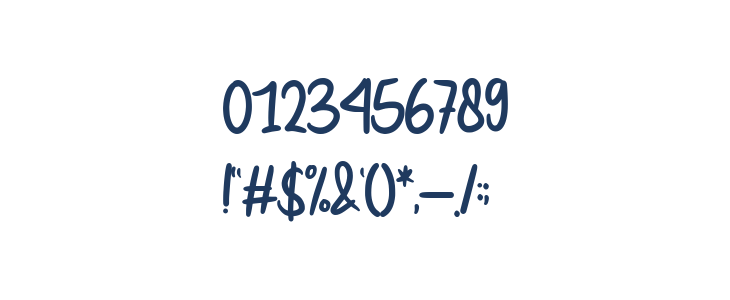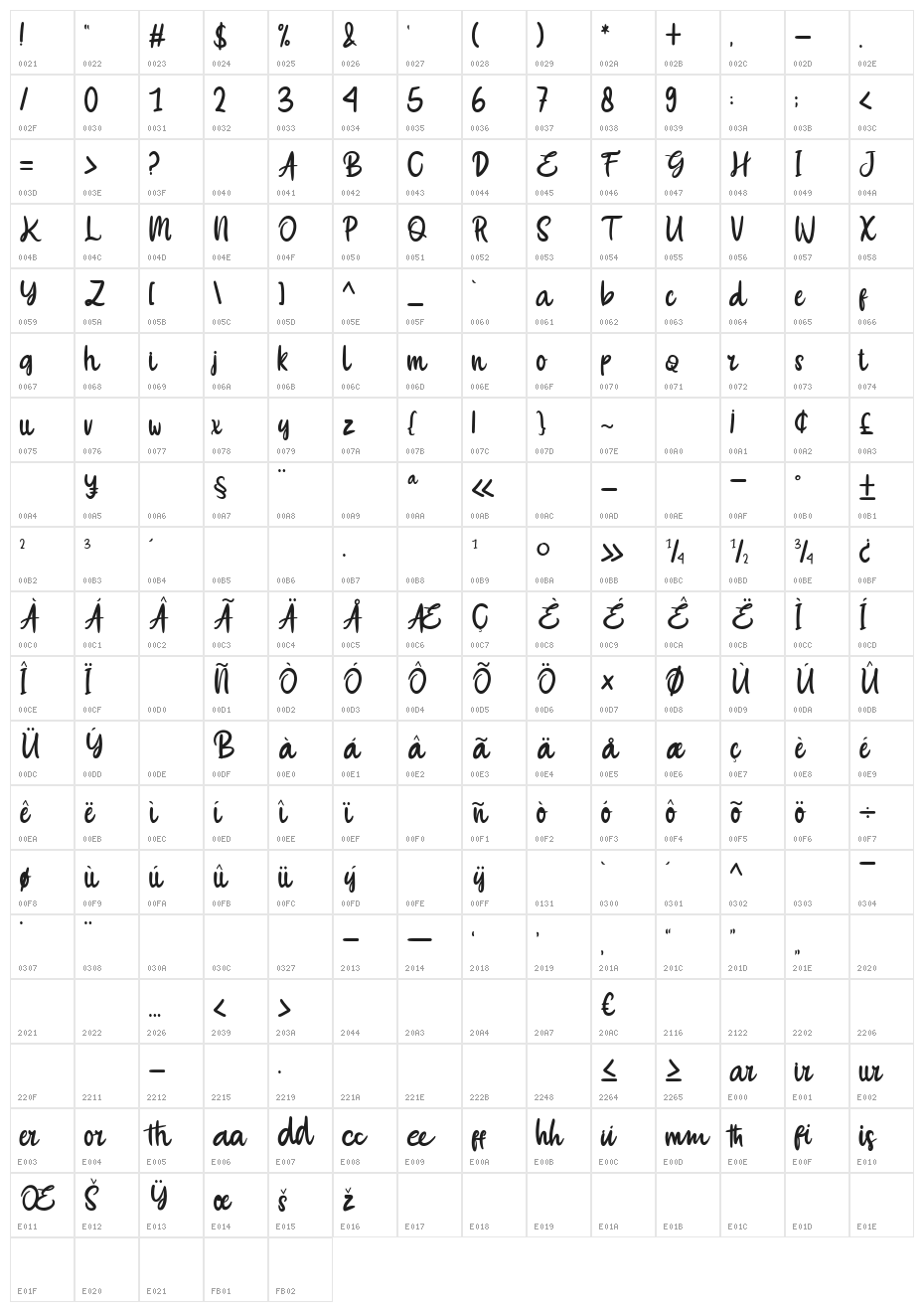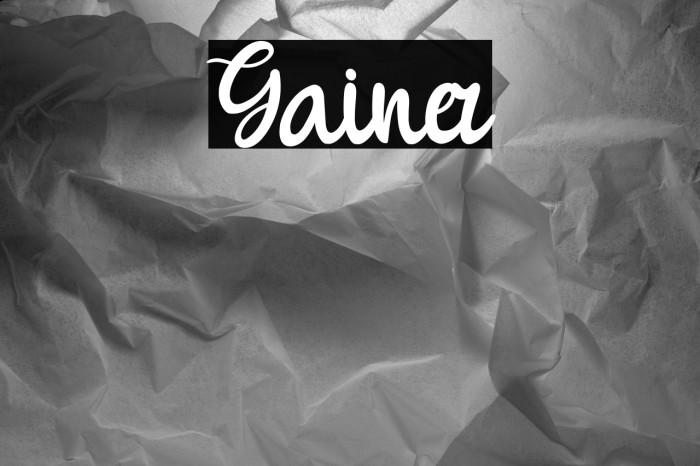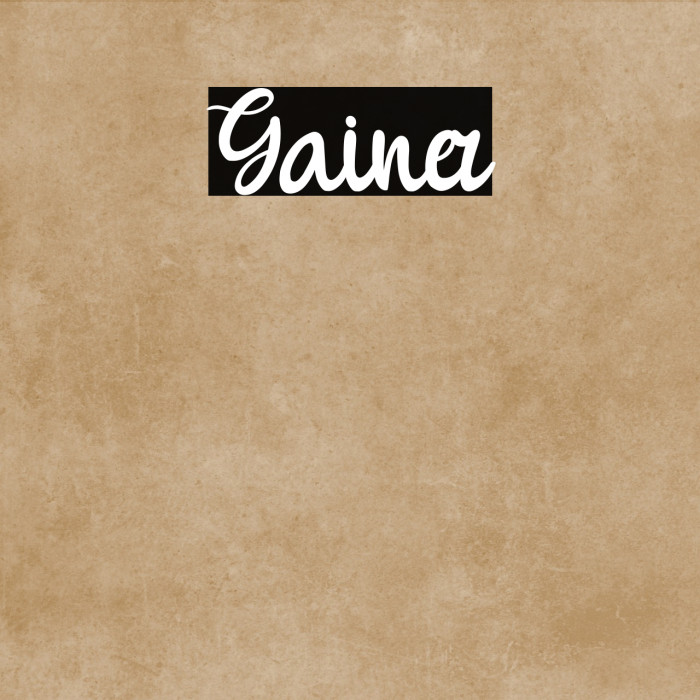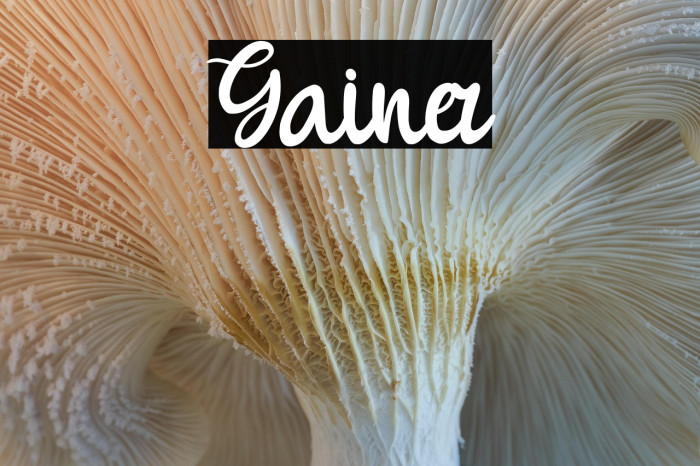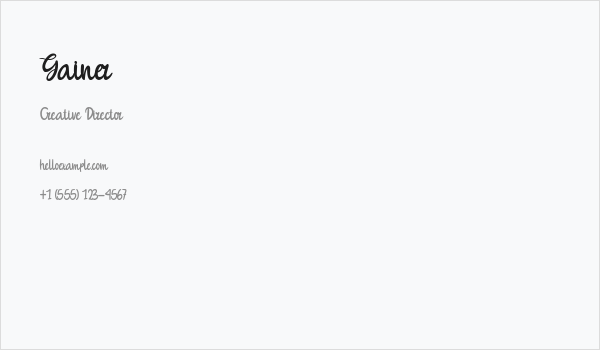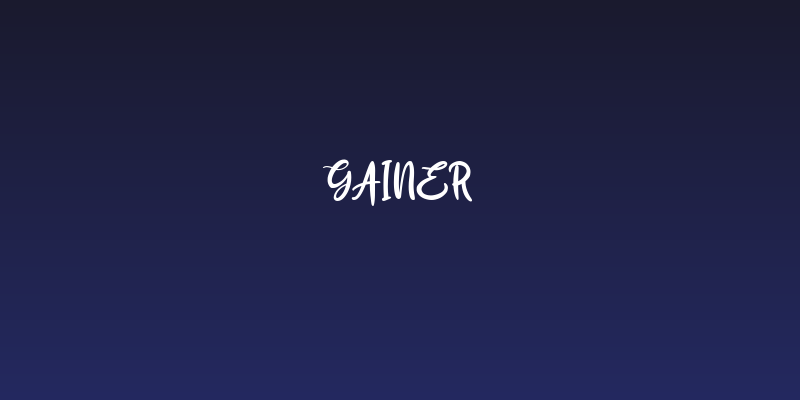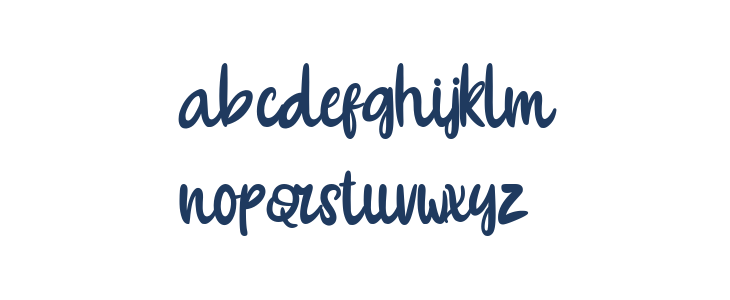
Gainer Font
Gainer Description
This font exhibits a playful and energetic script style, characterized by its fluid, cursive strokes and a sense of movement. The uppercase letters are bold and dynamic, with a slight slant that adds to the lively appearance. The lowercase letters maintain a consistent flow, with rounded forms and smooth connections between characters. The numerals are equally expressive, featuring a uniform height that aligns well with the overall style. Special characters are designed to complement the alphabet, maintaining the same whimsical and informal aesthetic. This font is ideal for projects that require a touch of personality and flair.